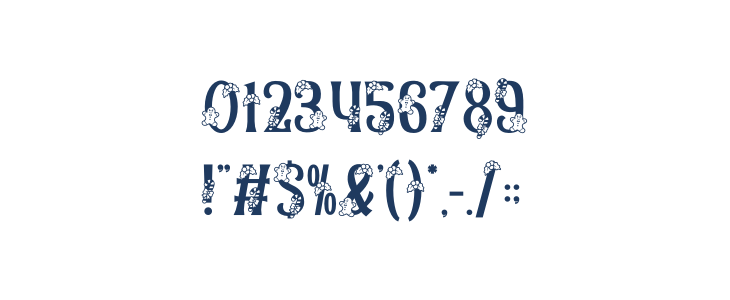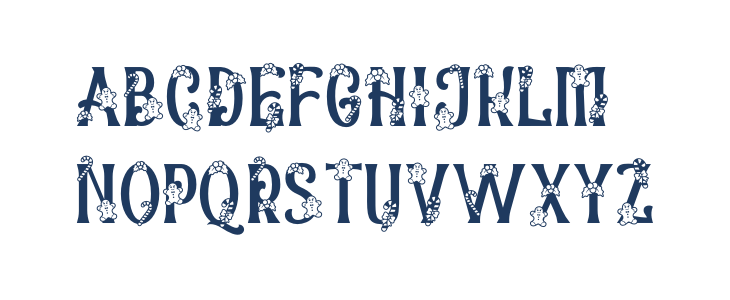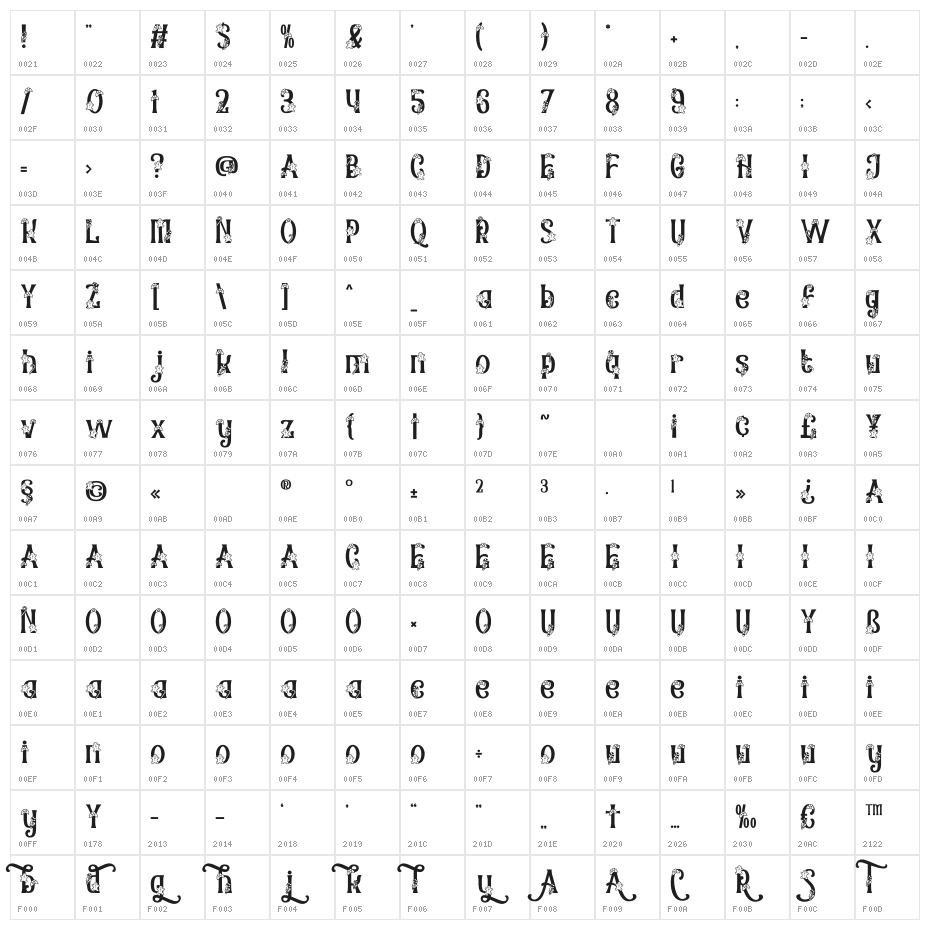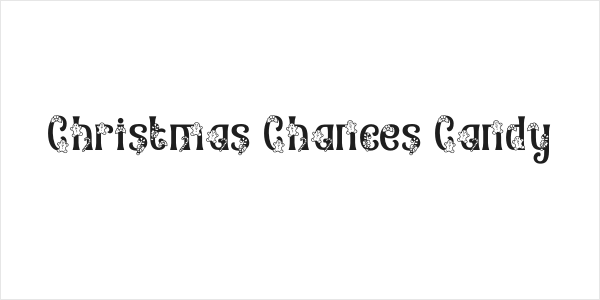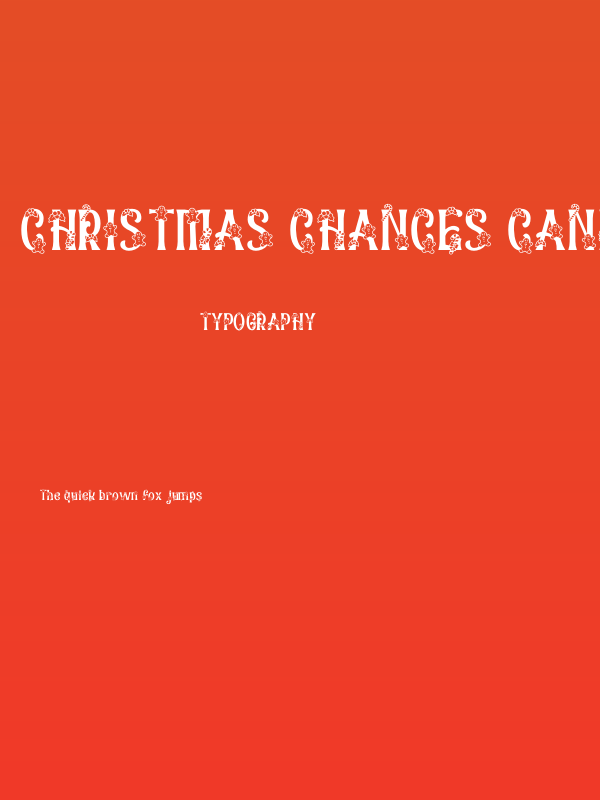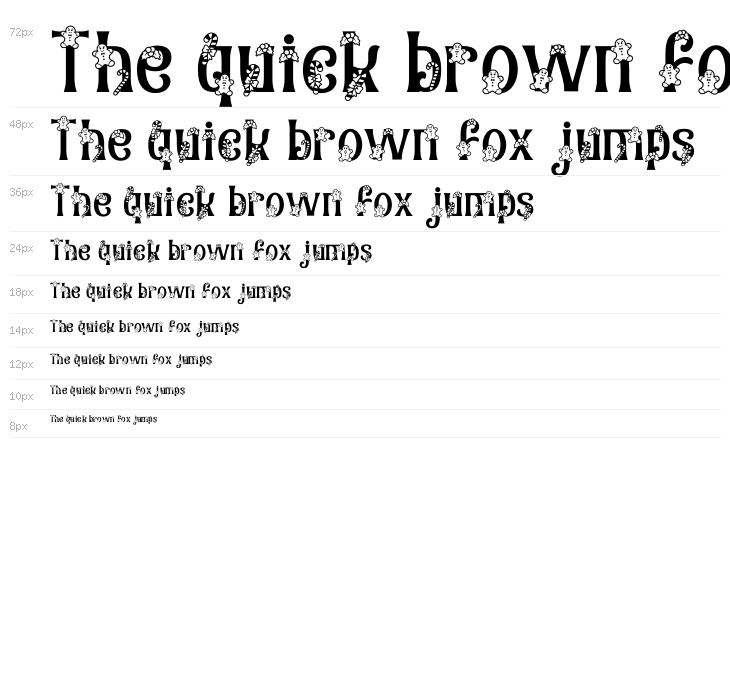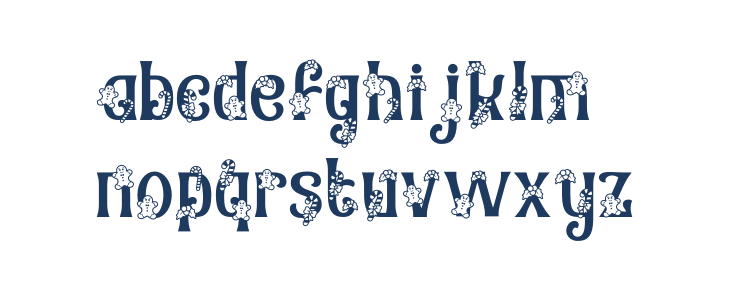
Christmas Chances Candy Font
Christmas Chances Candy Description
A playful decorative font featuring bold, whimsical letterforms adorned with gingerbread cookie and icing motifs, evoking a festive and cheerful holiday spirit.
| Overall Style | Decorative, Festive, Playful |
| Use Case | Headlines, Posters, Invitations, Holiday-themed graphics |
| Proposed Projects | Holiday cards, Christmas party invitations, festive posters, children's event materials, seasonal packaging. |